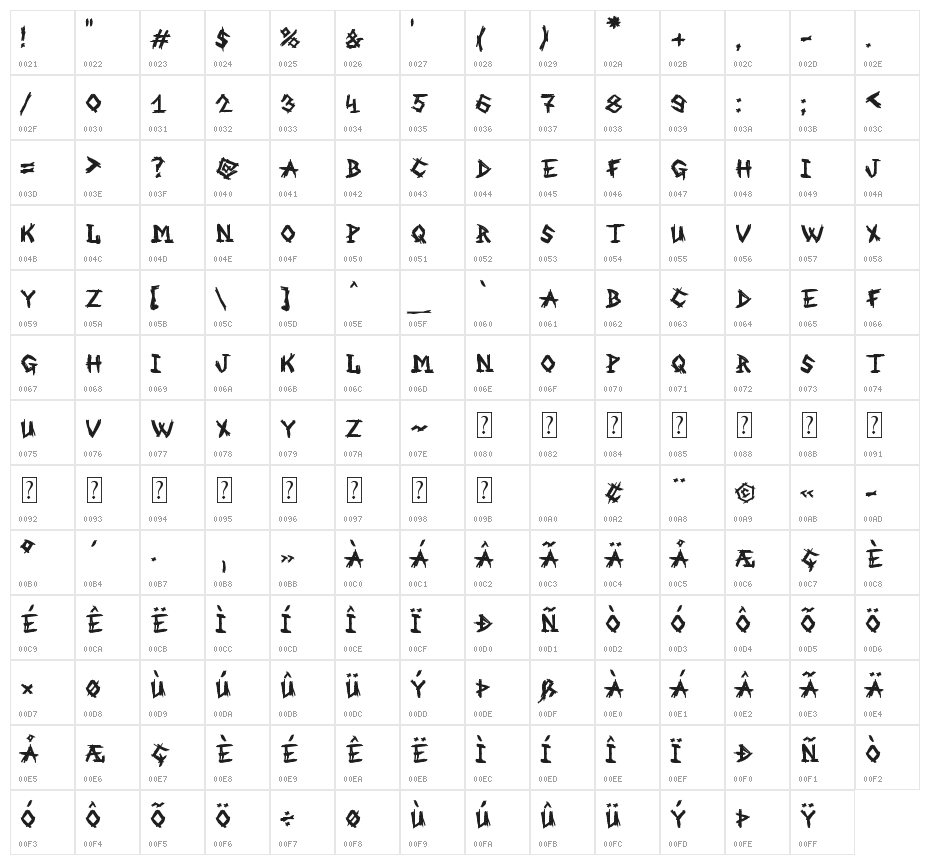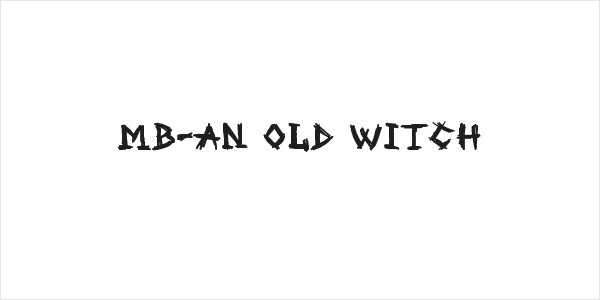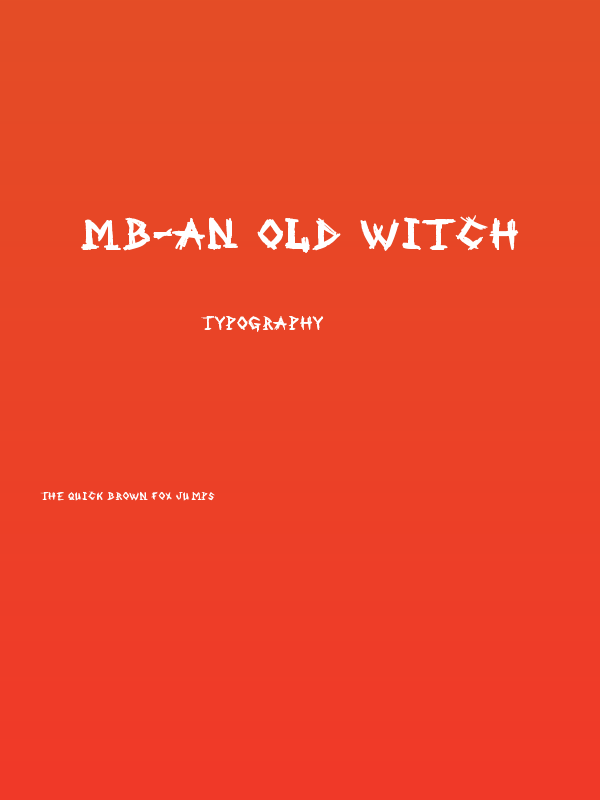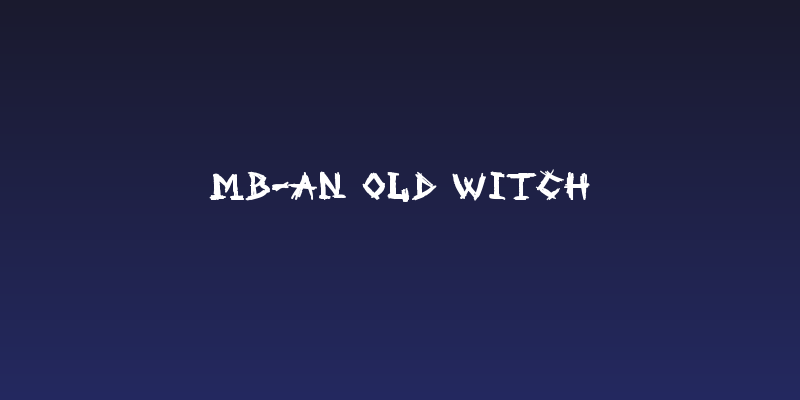
MB-An Old Witch Font
MB-An Old Witch Description
This font features a rugged, hand-drawn style with jagged edges and uneven strokes, evoking a sense of mystery and intrigue. The characters are bold and irregular, giving them a unique, almost chaotic appearance. The uppercase and lowercase letters maintain a consistent style, with sharp angles and a slightly distressed look. Numbers and special characters follow the same design, adding to the font's cohesive yet unconventional aesthetic. This font is perfect for projects that require a touch of the eerie or fantastical, such as Halloween-themed designs or fantasy book covers.
| Proposed Projects | Ideal for Halloween designs, fantasy book covers, spooky invitations, and themed posters. |